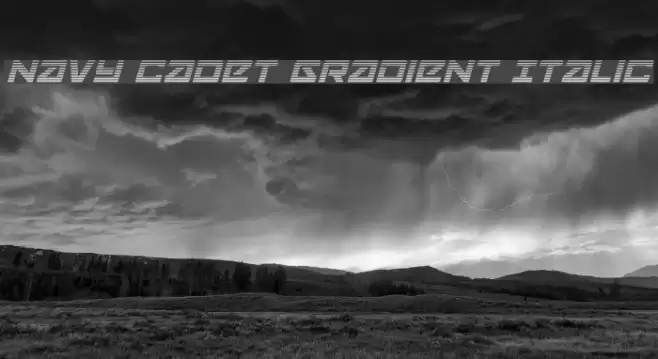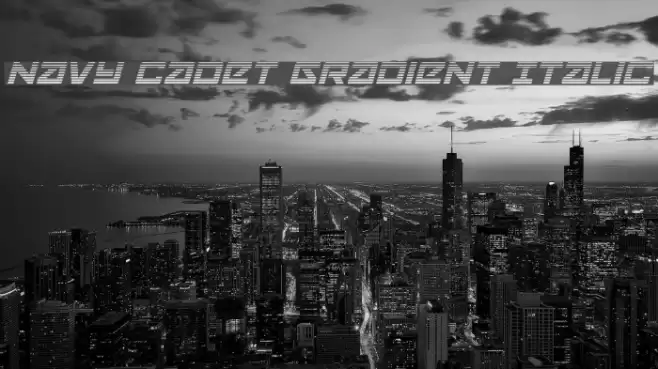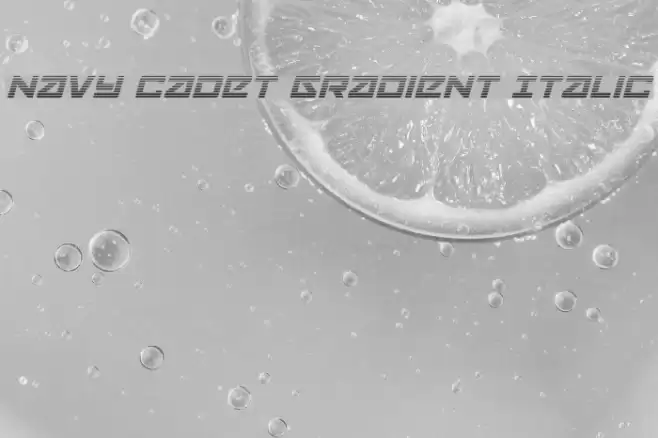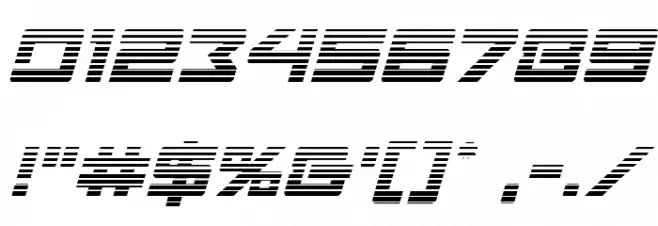
Navy Cadet Gradient Italic Font
Navy Cadet Gradient Italic Description
This font features a modern, futuristic design with a distinctive gradient effect created by horizontal lines. The characters are italicized, giving them a dynamic and forward-leaning appearance. The uppercase and lowercase letters maintain a consistent style, with sharp angles and geometric shapes. The numbers and special characters follow the same design principles, ensuring uniformity across all glyphs. The font's unique style makes it stand out, ideal for projects that require a bold and innovative look.
A modern, italicized font with a gradient effect and geometric shapes from Sci-fi fonts.
- Proposed Projects: Ideal for sci-fi themed designs, tech branding, video game titles, and futuristic posters.